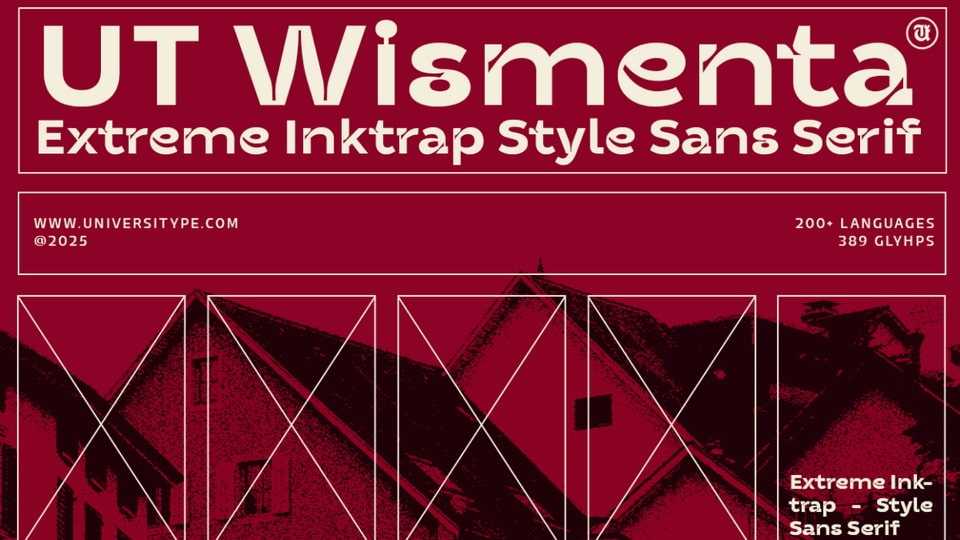
Download UT Wismenta font,, a bold display typeface that mixes the clean structure of Swiss modernism with the raw attitude of extreme ink traps.
Designer: Universitype Foundry